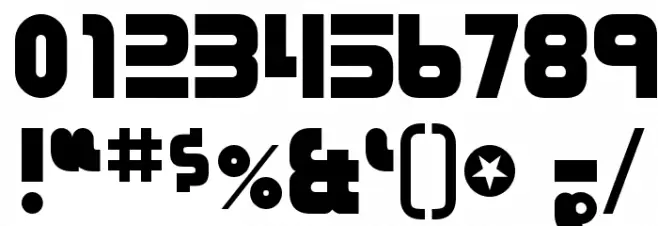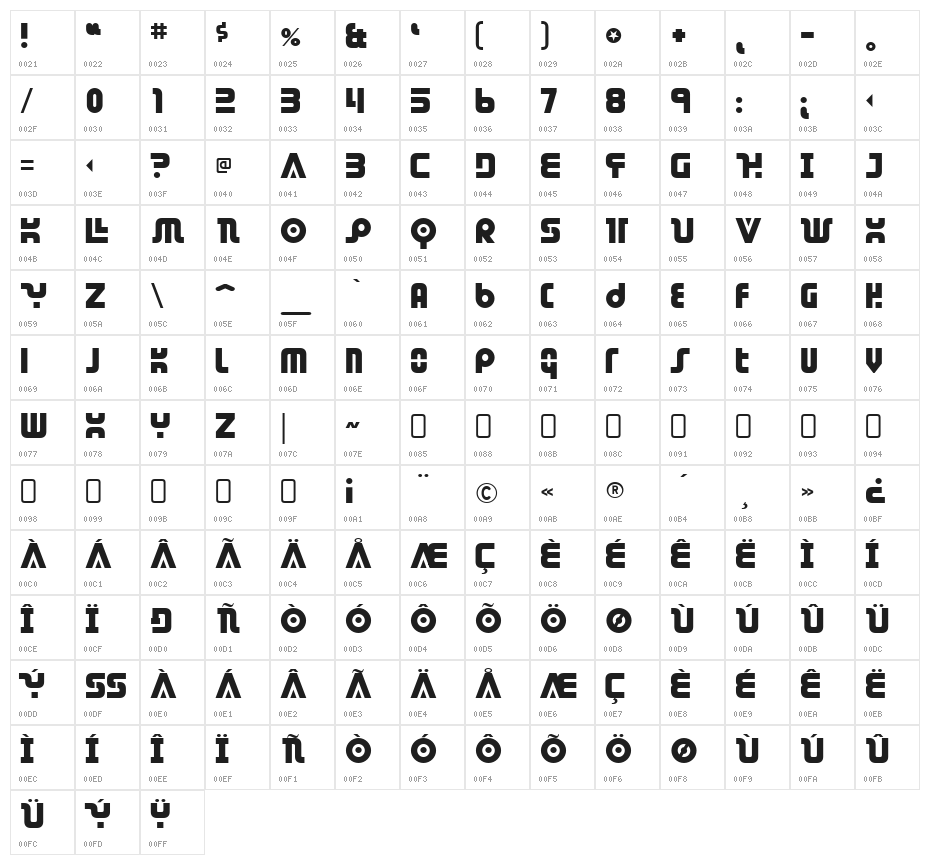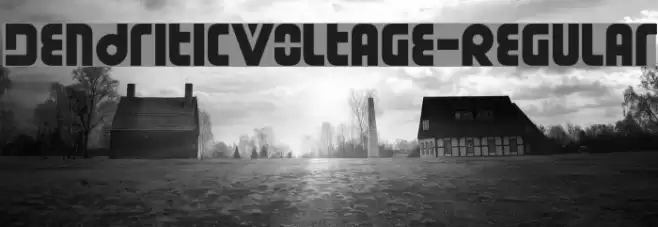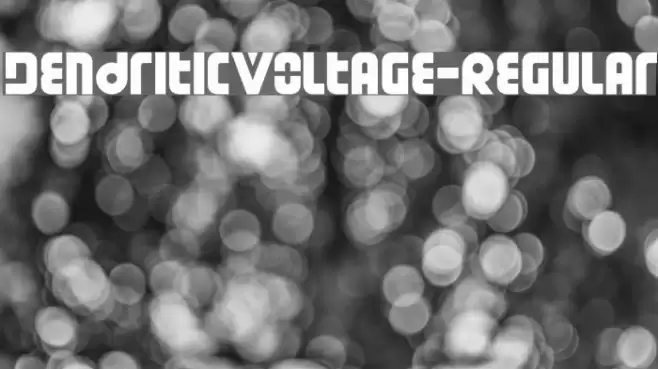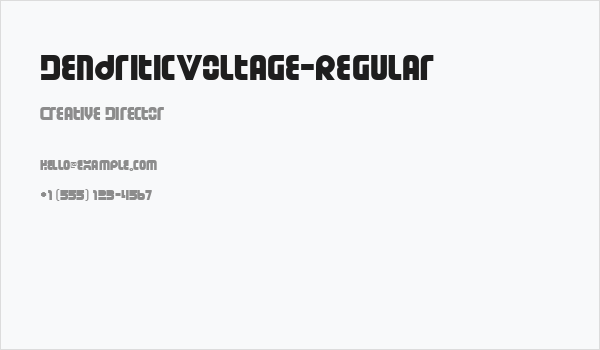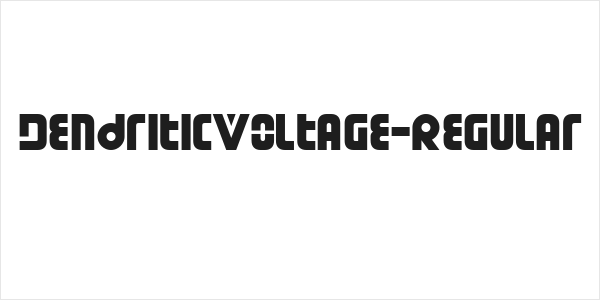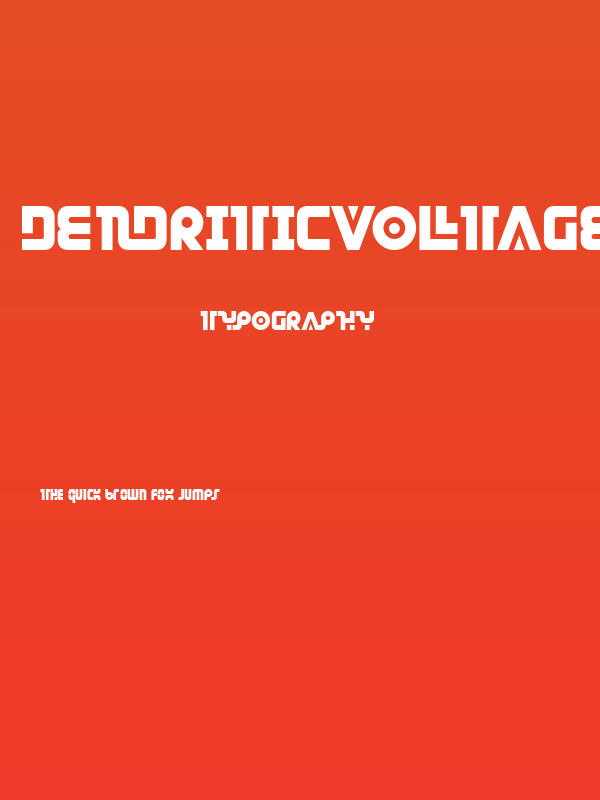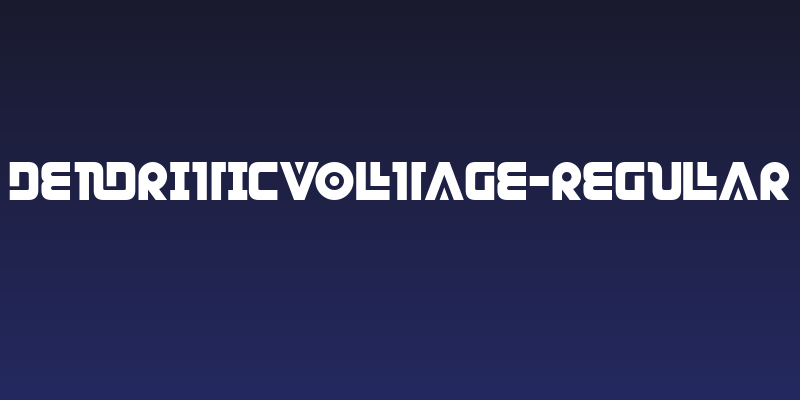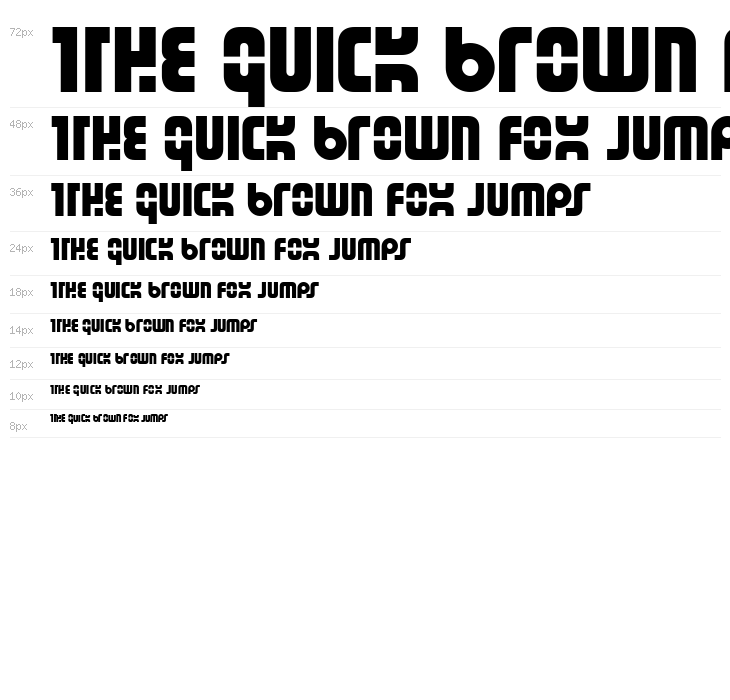
DendriticVoltage-Regular Font
DendriticVoltage-Regular Description
This font features a bold, geometric design with a futuristic and digital aesthetic. The characters are constructed with thick, uniform strokes and have a blocky, modular appearance. The uppercase and lowercase letters share a consistent style, with rounded edges and a strong presence. The numerals and special characters maintain the same bold and structured look, making them highly legible and impactful. The overall design is modern and eye-catching, suitable for projects that require a strong visual statement.
| Proposed Projects | Ideal for technology branding, video game titles, sci-fi posters, and digital interfaces. |